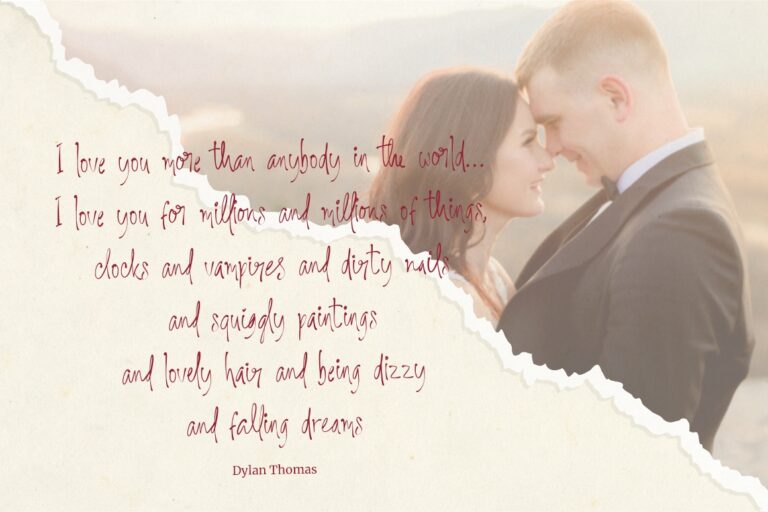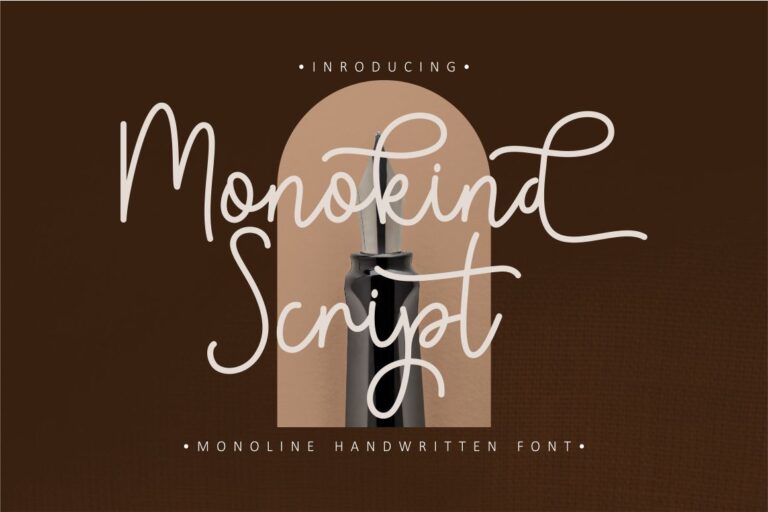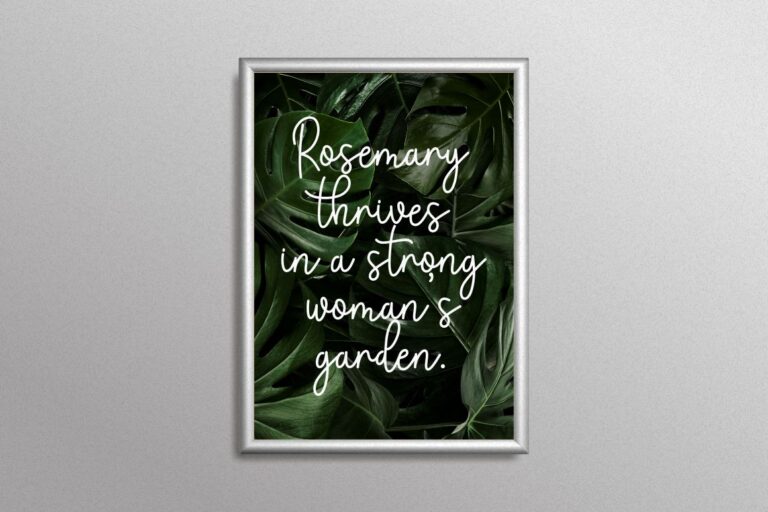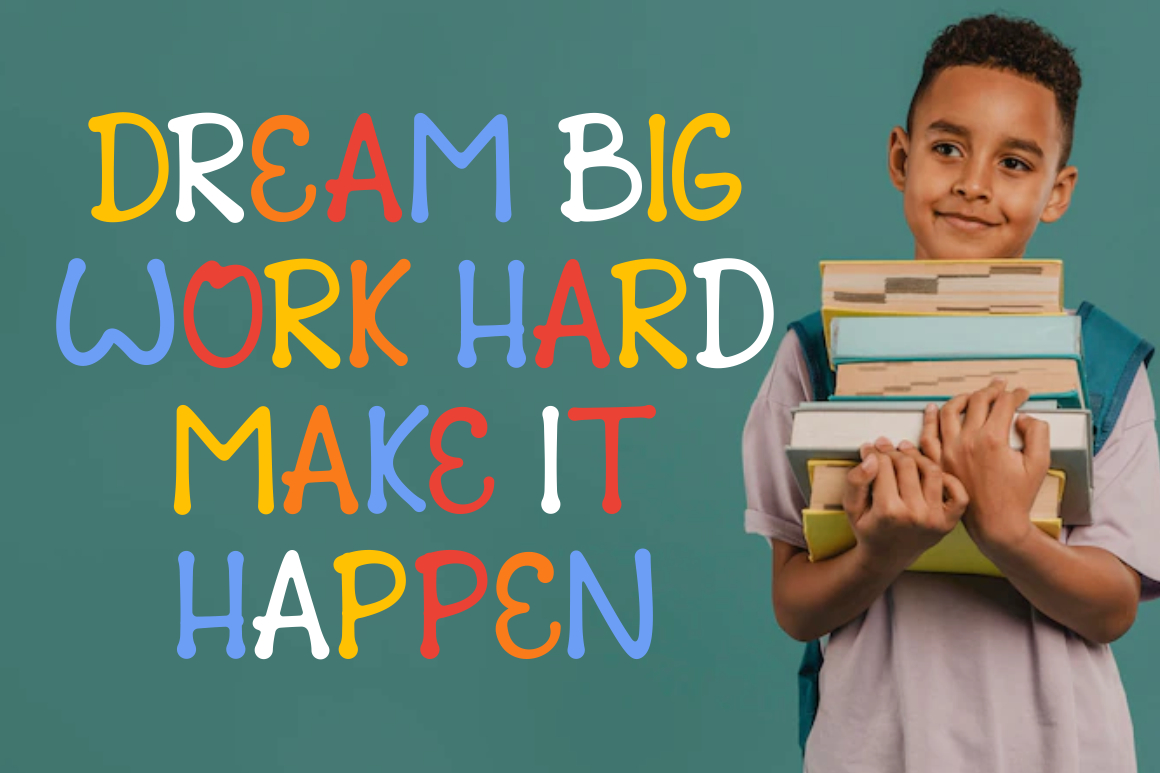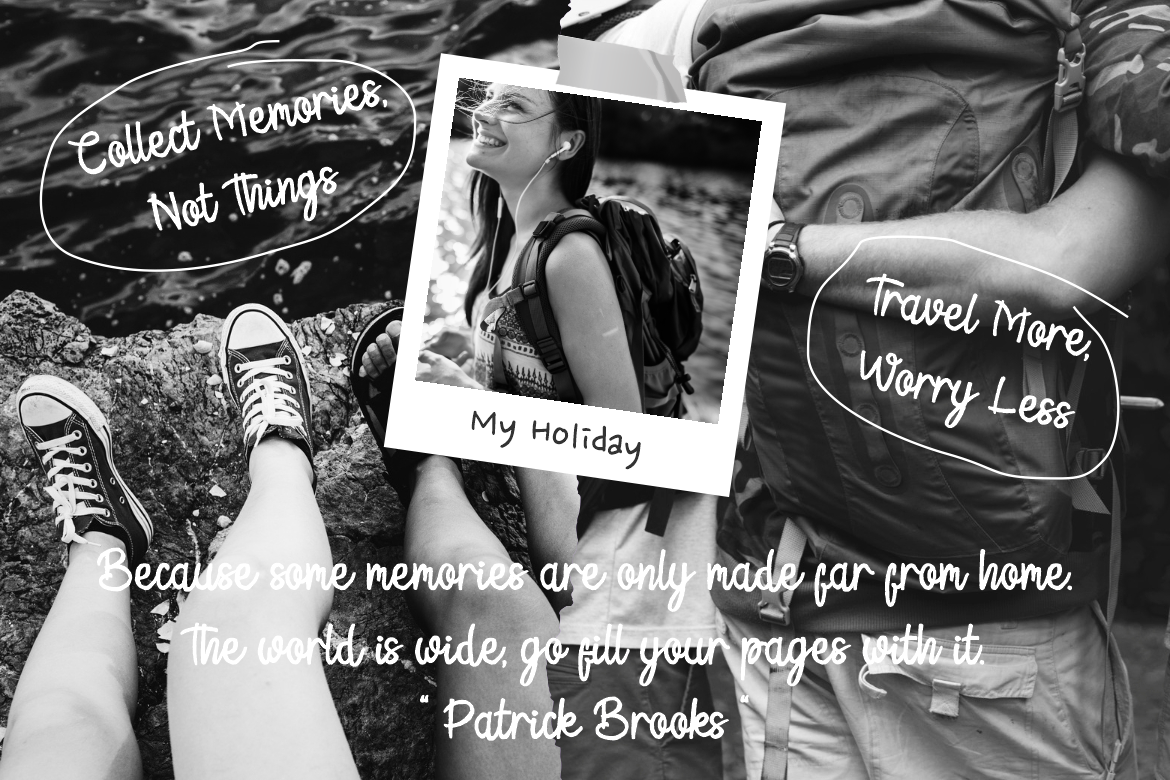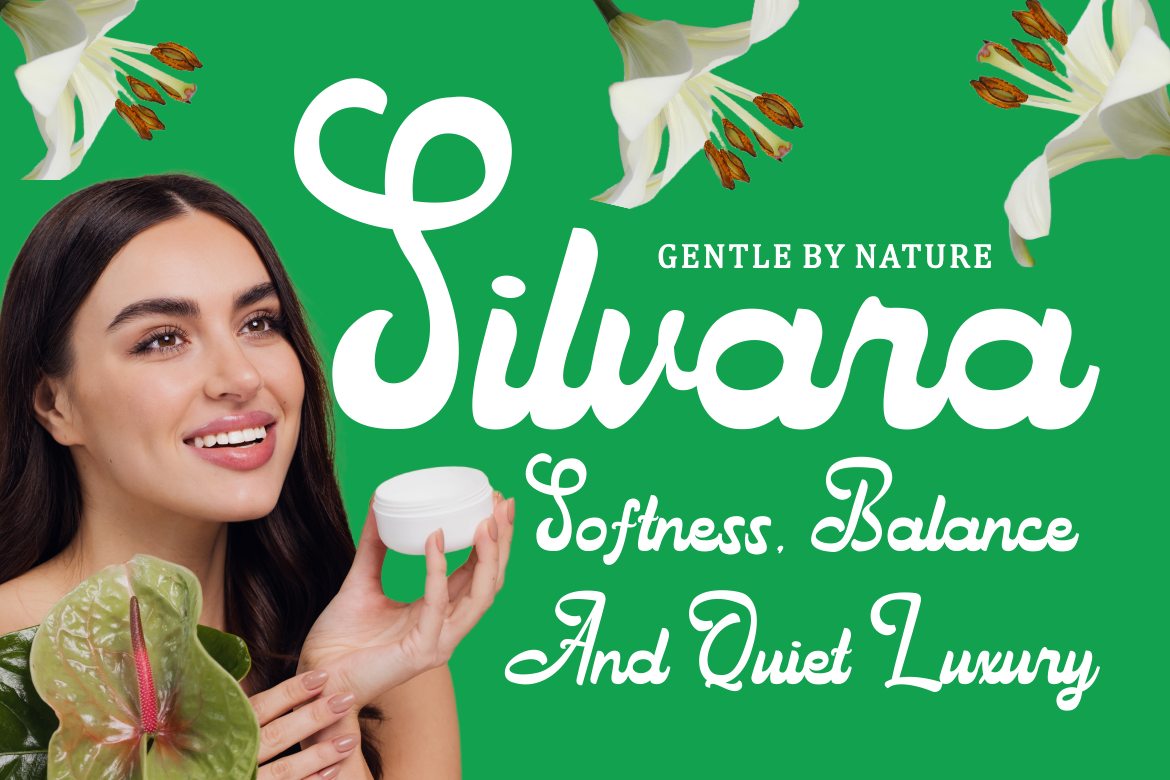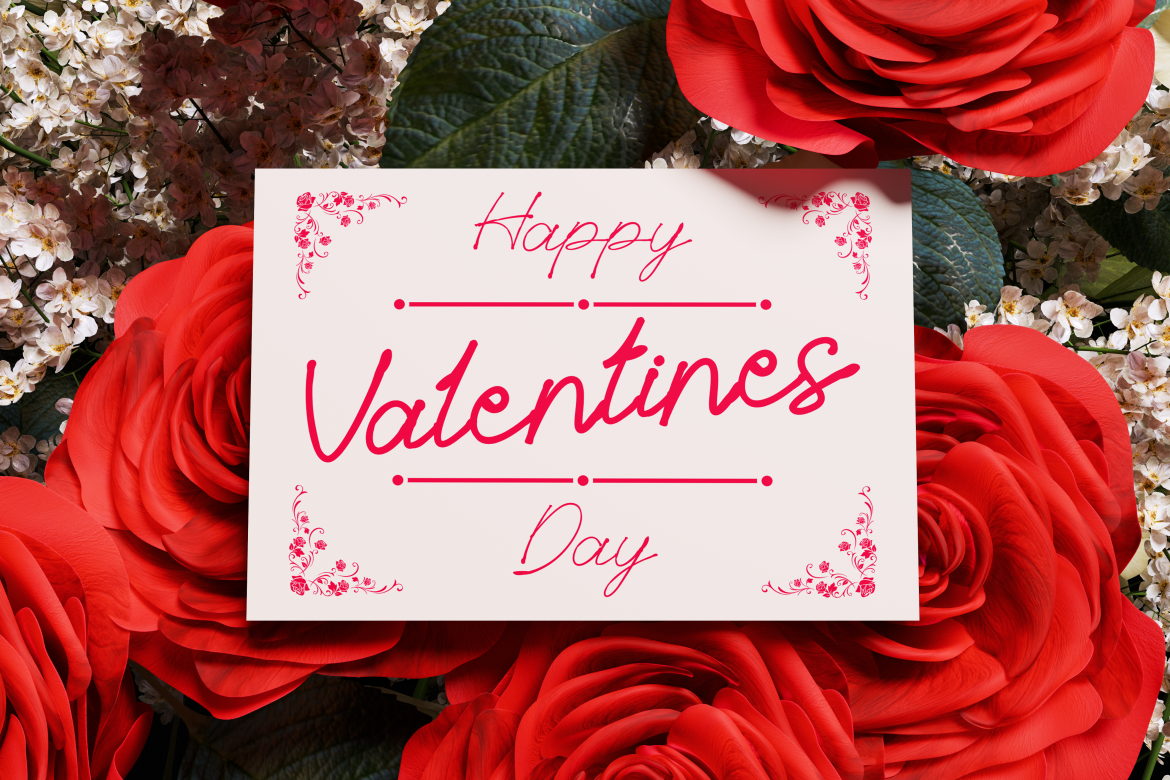
Best Handwritten Fonts for Logos, Packaging, Editorial, and Social Media
Handwritten fonts bring qualities that highly polished digital typography can sometimes lack: warmth, individuality, movement, and a visible sense of human presence. Their letterforms may imitate casual notes, smooth monoline writing, expressive brush strokes, personal signatures, or refined modern calligraphy.
These characteristics make handwritten typography particularly useful for brands that want to appear approachable, creative, intimate, or handcrafted. Monotype notes that handwriting typefaces can immediately make communication feel more human, although their strong personalities mean they must be selected carefully. Current typography trends also show a wider movement toward expressive, imperfect, and emotionally engaging forms as designers move away from overly uniform digital aesthetics.
Handwritten fonts can work across logos, product packaging, invitation design, journal covers, editorial graphics, fashion campaigns, social media posts, and personal portfolios. The key is choosing a style that matches the audience and using it where personality matters most.
This guide introduces nine distinctive options from PutraCetol Studio. The selection ranges from playful childlike handwriting and romantic scripts to bold streetwear lettering and an experimental companion font.
Initial Suggestion
Choose the Right Handwritten Personality
Not every handwritten font communicates the same emotion. Before choosing one, decide what the typography should say about the brand.
A thin signature font may communicate sophistication and intimacy. A rounded monoline script can feel friendly and contemporary. Childlike handwriting suggests playfulness and curiosity, while a bold marker-style script can convey confidence, youth culture, or creative energy.
Consider these common directions:
• Elegant script: weddings, beauty, luxury, and personal brands
• Casual handwriting: lifestyle, journals, cafés, and social media
• Playful handwriting: children’s products, education, books, and events
• Bold script: streetwear, posters, merchandise, and entertainment
• Romantic monoline: florists, gifts, skincare, and boutique businesses
Use Handwritten Fonts as Display Typography
Most handwritten fonts work best for short, high-impact text such as:
• Logos
• Product names
• Packaging headlines
• Social media quotes
• Invitation titles
• Poster headings
• Personal signatures
• Campaign slogans
Avoid using an expressive handwritten font for long paragraphs, legal information, ingredient lists, or complex navigation. Adobe recommends prioritizing readability across screen sizes and devices, particularly in digital typography.
Pair Them With a Functional Supporting Font
A handwritten typeface becomes more effective when paired with a simple serif or sans-serif. The handwritten font creates personality, while the supporting font handles descriptions, prices, menus, body copy, and interface information.
For example:
• Romantic script with an elegant serif
• Casual handwriting with a neutral sans-serif
• Bold brush lettering with a condensed sans-serif
• Playful handwriting with a rounded geometric font
This creates contrast without allowing the design to become visually chaotic.
Check Alternates and Ligatures
Digital handwriting can feel repetitive when identical letters appear several times in the same word. OpenType alternates, contextual forms, ligatures, and swashes can introduce natural variation and help a font feel more like genuine lettering.
Test the actual brand name before purchasing. Pay particular attention to repeated characters, capital initials, letter connections, long ascenders, descenders, numerals, and punctuation.
1. My Beautiful Story
My Beautiful Story has a thin, personal handwritten character that feels similar to a carefully written note or signature. Its delicate construction makes it suitable for designs that need sincerity rather than heavy visual impact. Alternative characters and multilingual support give designers more flexibility when creating names, quotations, and personal branding materials.